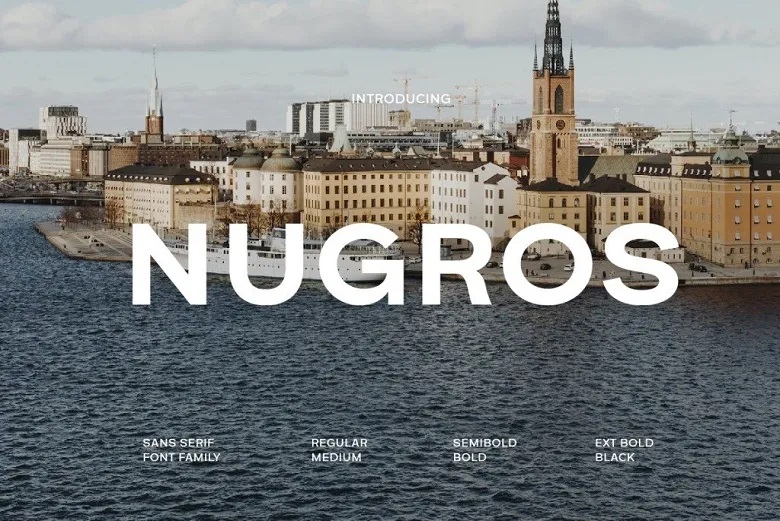
Nugros Font Family
Nugros is a new sans serif font family with clean lines and contemporary look, that can be used for various purposes. This font can be used in formal designs like logo, websites, brochures and or pamphlets. The typefaces chosen are simple and legible with a clean and corporate look to the design.
Nugros has a luxurious and self-assured look, thus ideal for application as the primary component of branding logos. It is also versatile and can be used in many types of designs due to this reason.
Nugros Sans Serif Font Family